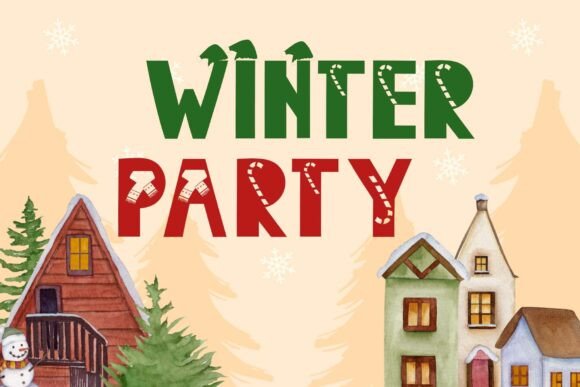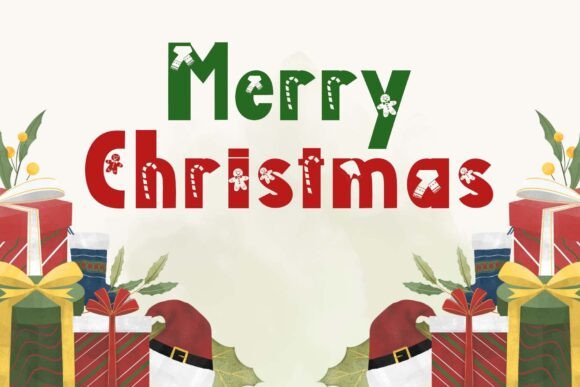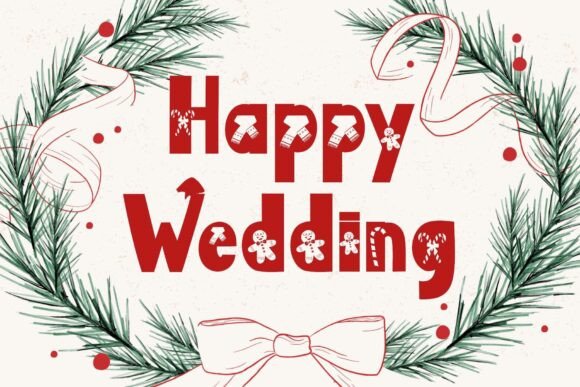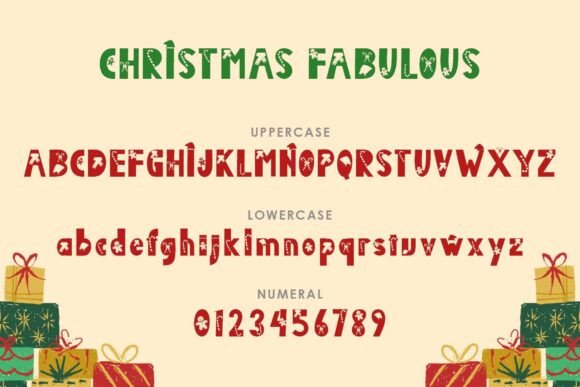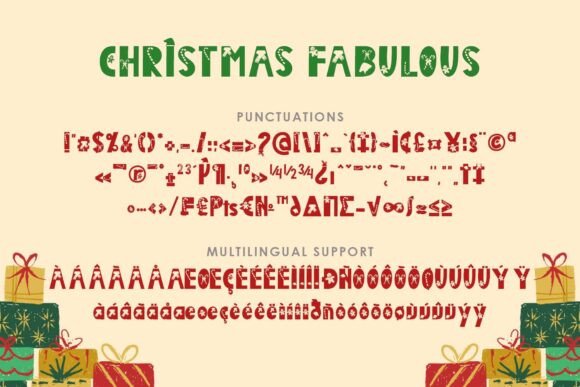
Introduction to Christmas Fabulous Font Font
Fonts play a crucial role in design, and the Christmas Fabulous Font font is a typeface that brings both character and versatility to any project. Whether you’re working on a branding project, a website, or a print design, the Christmas Fabulous Font font offers a unique style that can elevate your work.
Christmas Fabulous is a bold, festive font with decorative letters filled with fun Christmas elements like stars, trees, and ornaments.
Itβs perfect for adding a cheerful holiday spirit to your designs .
Key Features of Christmas Fabulous Font Font
Why Choose Christmas Fabulous Font Font?
The Christmas Fabulous Font font is more than just a typeface β it’s a design tool that helps you communicate your message with style and clarity. Its unique character set and versatile design make it suitable for a wide range of applications, from elegant invitations to bold headlines.
With its carefully crafted letterforms and balanced proportions, the Christmas Fabulous Font font ensures readability and visual appeal across all mediums.
What makes Christmas Fabulous Font font special?
The Christmas Fabulous Font font stands out with its unique design, exceptional readability, and versatility across various design applications.